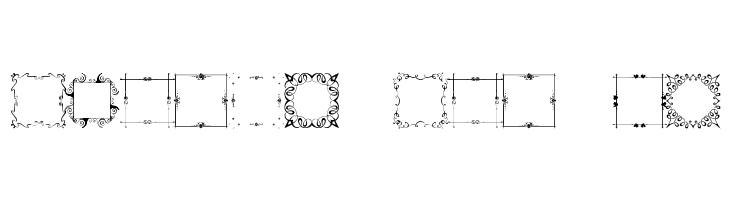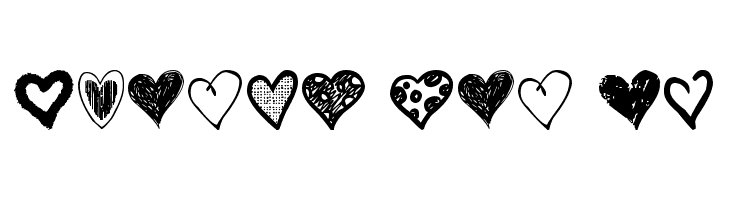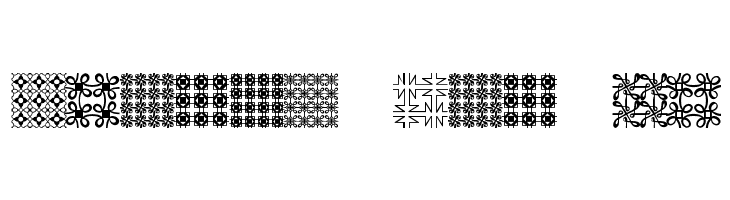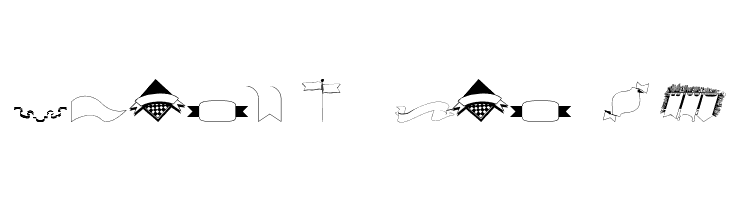
Ornate heart and floral decorative pattern.
Pattern-based decorative font with geometric and ornamental motifs.
A decorative dingbat set of banners, ribbons, and scrolls.
Ornamental geometric border font with Art Deco influence.